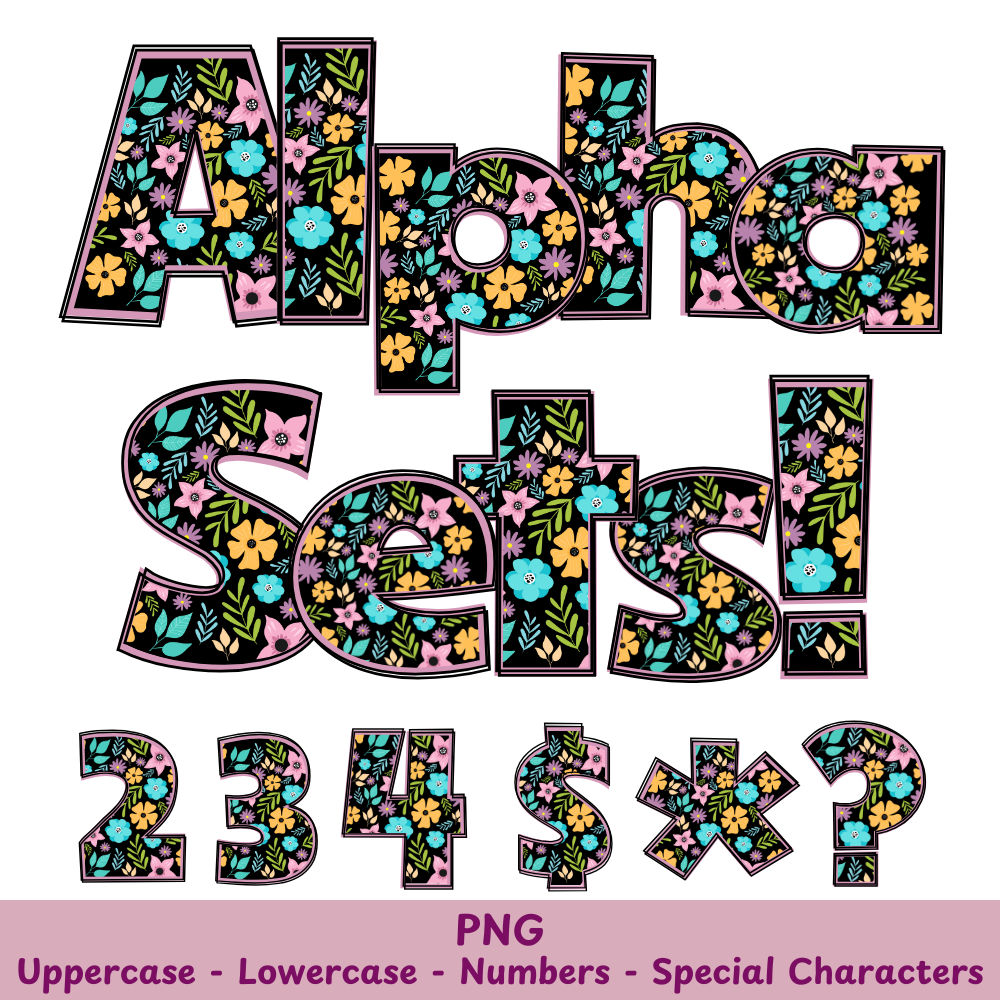
Purple Flowers PNG Font
Purple Flowers Alpha Set PNG Font Pack
This Purple Flowers PNG Font adds a unique touch to your crafts and sublimation projects. With high-quality PNG files, you can easily incorporate these beautiful purple flowers into your designs. Enhance your creations with this versatile and eye-catching font.